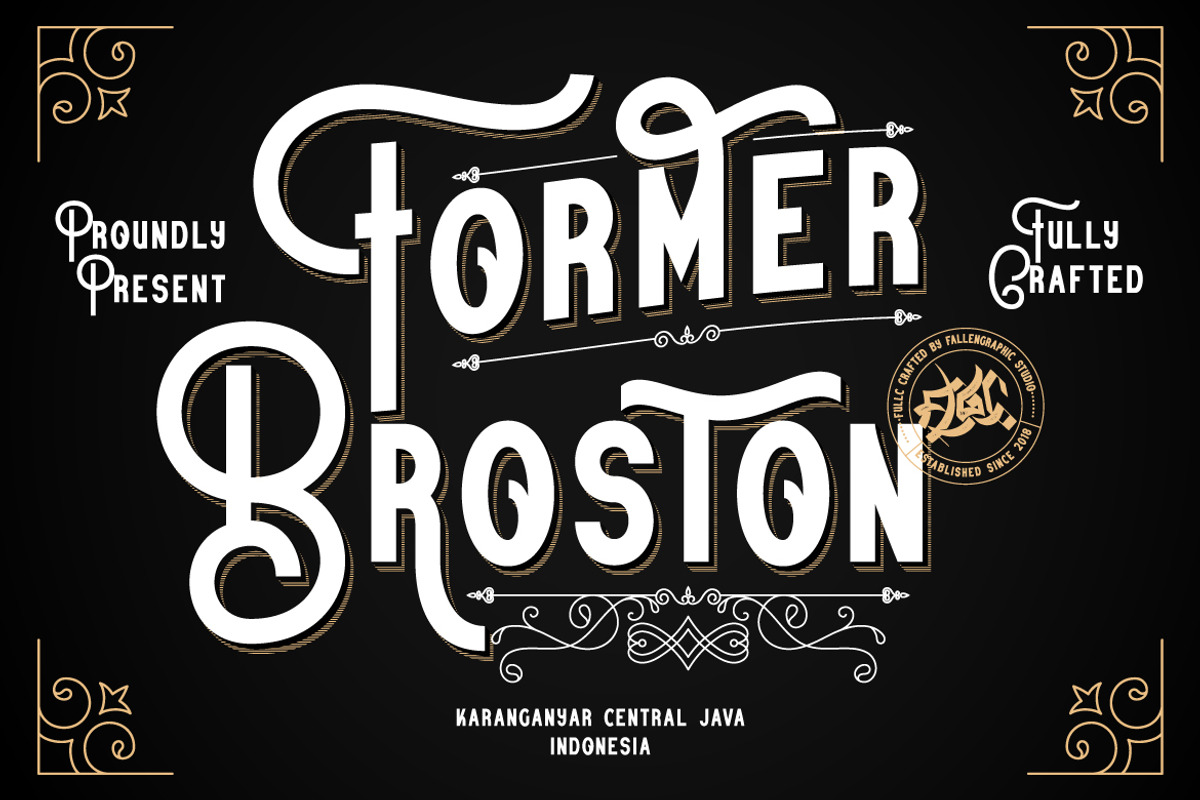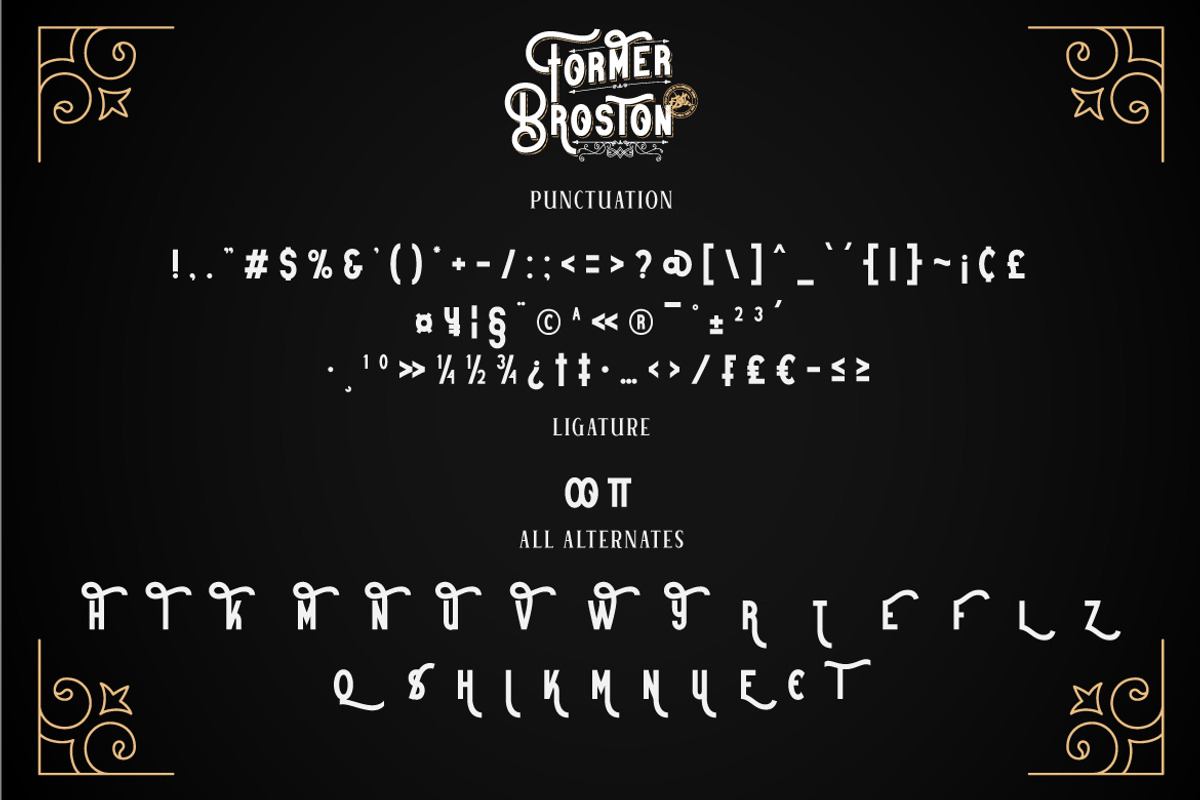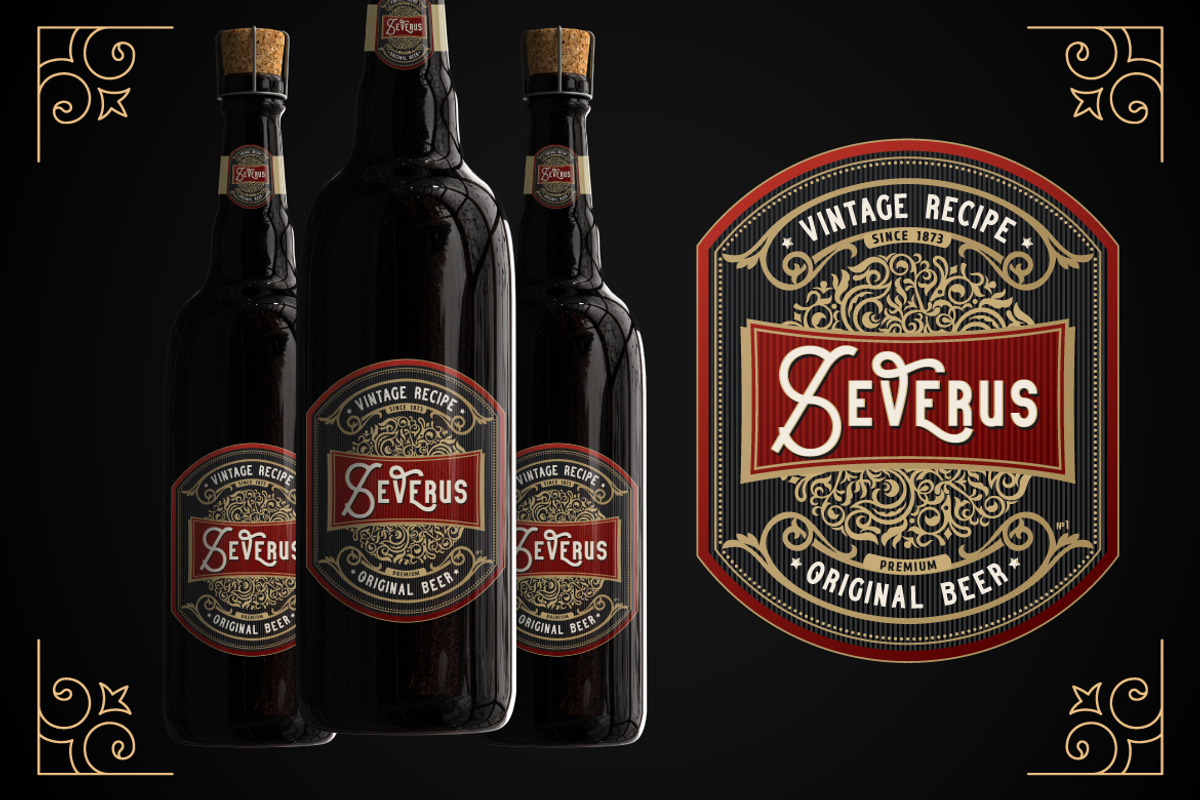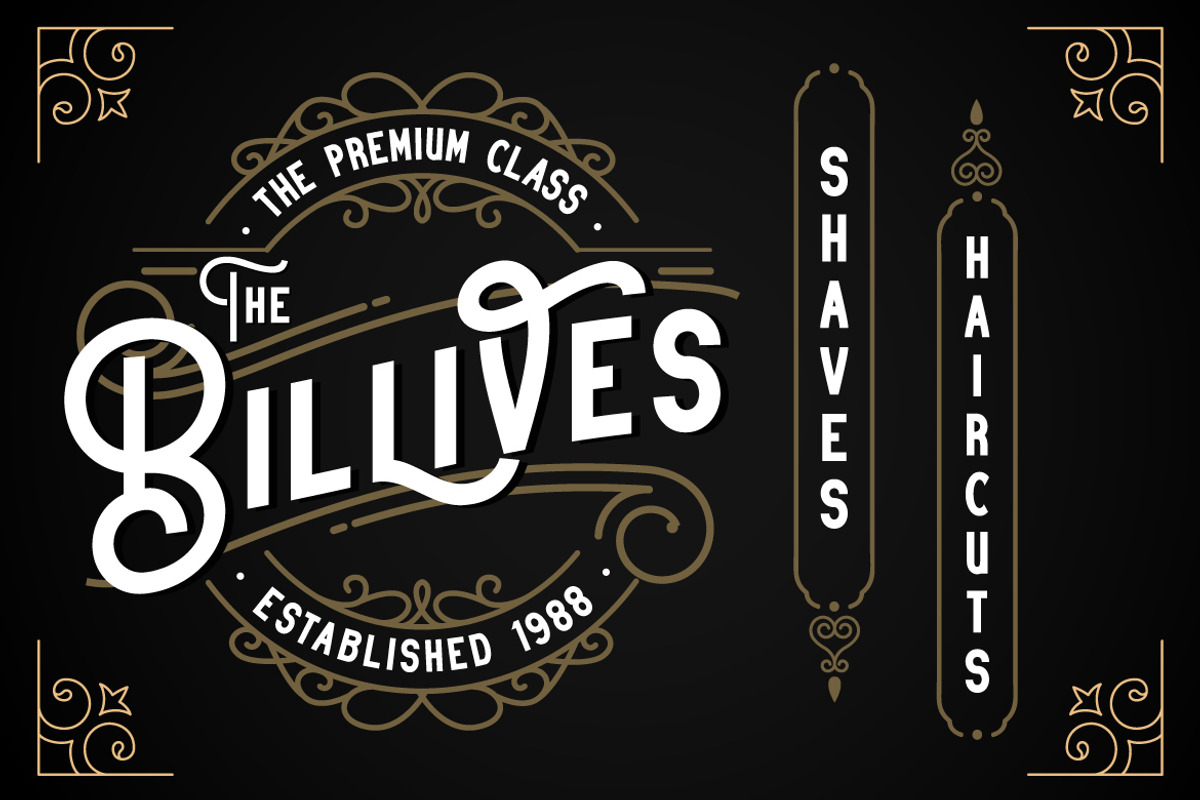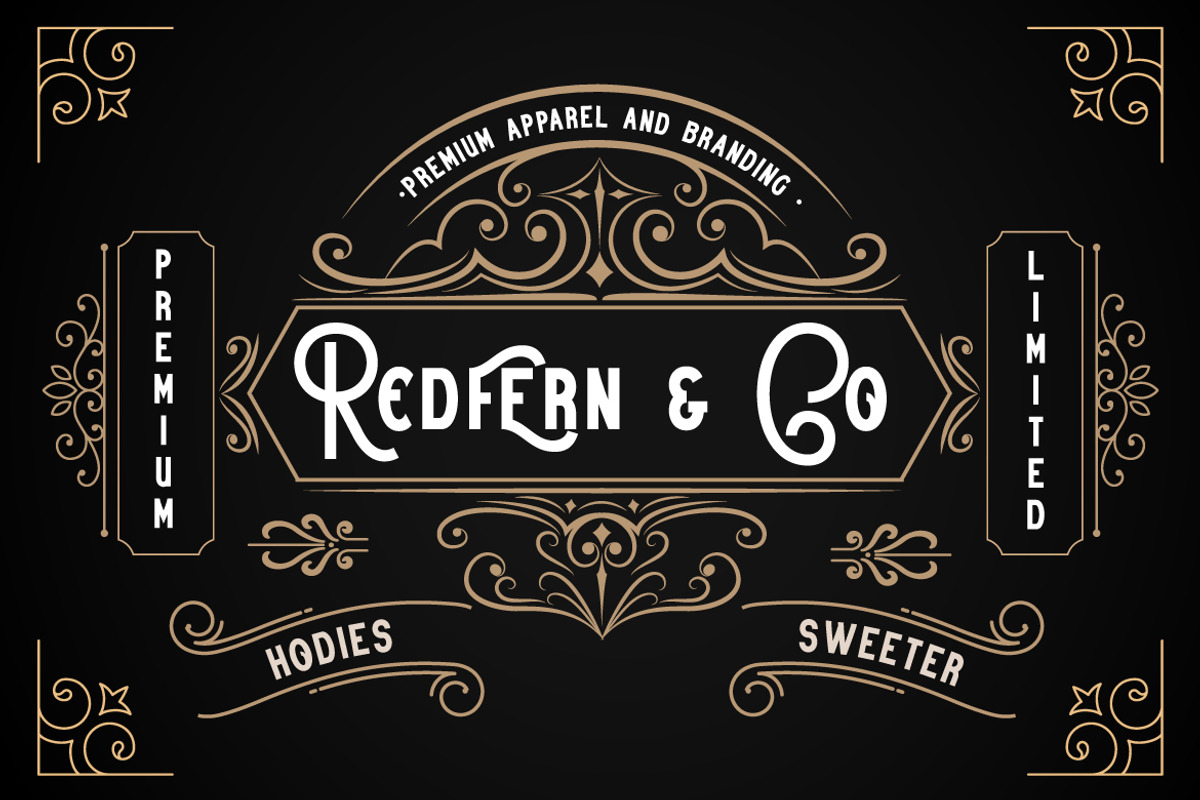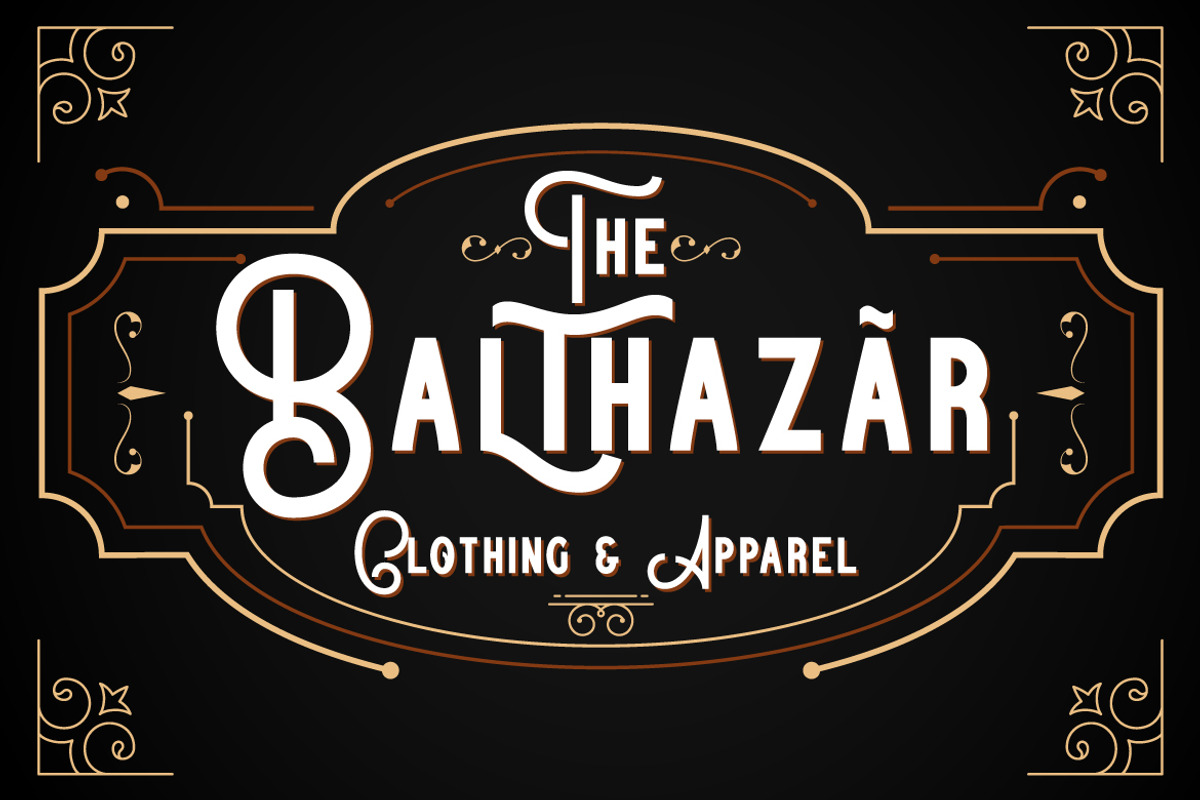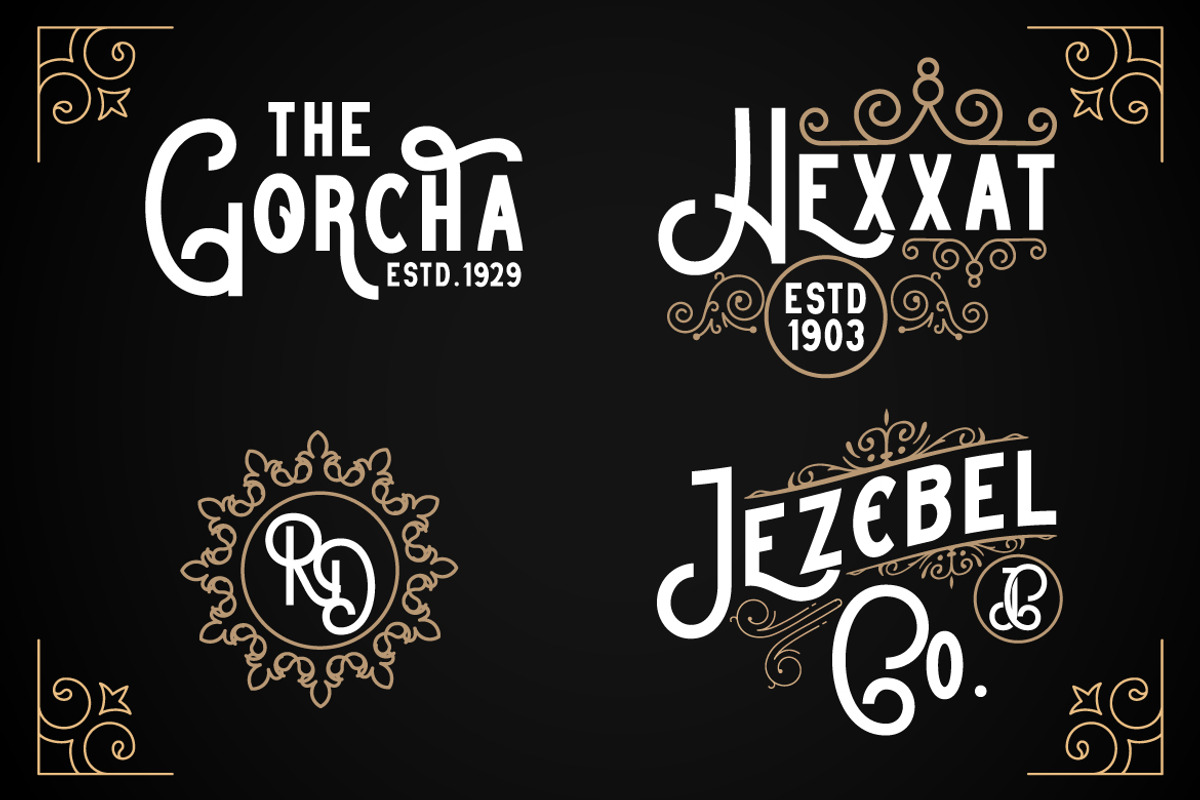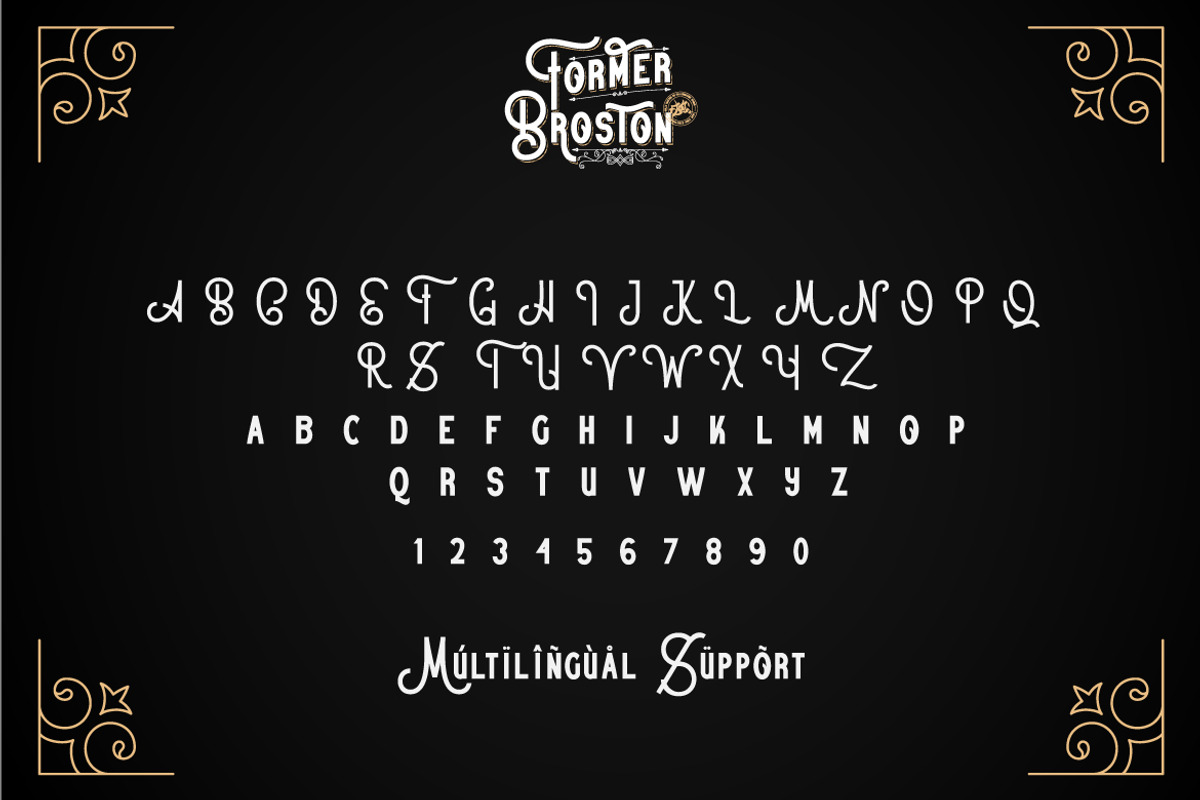
Former Broston - A Vintage Font
Former Broston is stands out as a diverse selection of typefaces, beautiful alternates character that maintain a coherent look and feel throughout. font is perfect for branding, headings, signatures, logos, blog, wedding invitations, t-shirts, letterhead, merchandise, signage, lable, news, posters, badges etc.
- Character Set A-Z
- Numberal
MULTiLINGUAL ACCENT
žŠŒšŸÀÁÂÃÄÅÆÇÈÉÊËÌÍÎÏÐÑÒÓÔÕÖØÙÚÛÜÝßàáâãäåæçèéêëìíîïðñòóôõöøùúûüýÿ